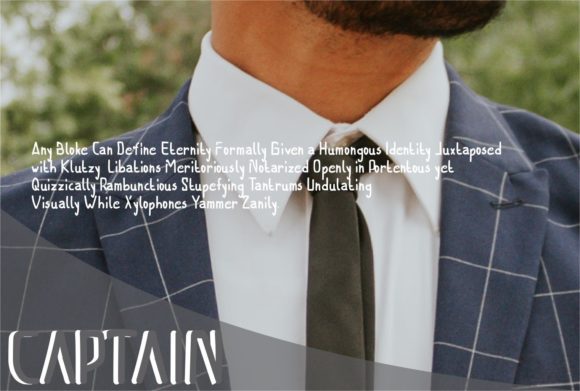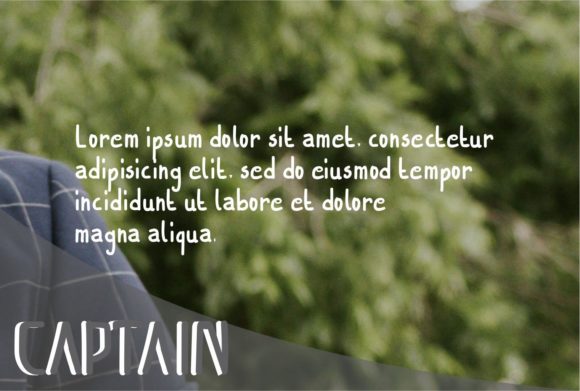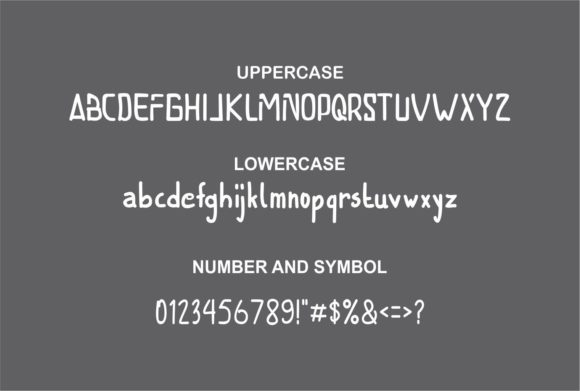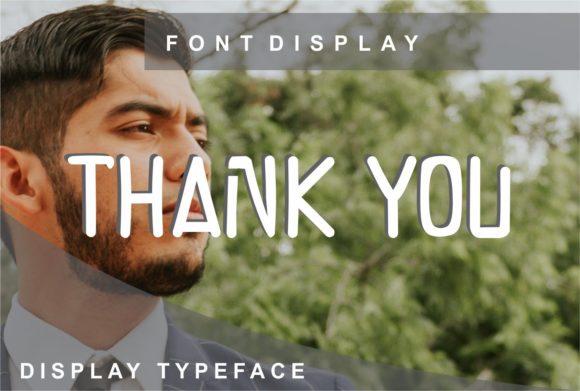
The Font that Saved my Design (and Probably Yours Too!)
I still remember the time I was working on a branding project for a trendy coffee shop. I had the logo concept nailed, but the font I was using just wasn’t cutting it. It was either too bland, too overused, or just plain didn’t fit the vibe. I spent hours scouring through font libraries, but nothing seemed quite right. That’s when I stumbled upon Captain Font. It was like a breath of fresh air – adaptable, trendy, and instantly elevated my design. If you’re a designer, crafter, or creative hobbyist looking for a font that can do it all, you’re in the right place!
An Honest Review of Captain Font
- ✨ Versatility: Captain Font is incredibly adaptable, making it perfect for a wide range of projects, from branding and advertising to packaging and digital media.
- ✅ Trendy and Modern: This font has a fresh, contemporary feel that’s sure to make your designs stand out.
- 💡 Ease of Use: Captain Font is easy to read and works well in various sizes, making it perfect for both headings and body text.
While Captain Font is an amazing addition to any font library, there are a few things to keep in mind:
- 🤔 Limited Serif Options: Captain Font is primarily a sans-serif font, which might limit its use in certain projects that require a serif font.
- ⚠️ Not Suitable for Body Text: While it’s easy to read, Captain Font is best used for headings and titles. For body text, you might want to opt for a more traditional font.
One of the best things about Captain Font is its support for OpenType features. This means you can access a range of glyphs, stylistic alternates, and other typographic features to take your designs to the next level. Here are a few tips for accessing these features:
The Story Behind Captain Font
While the origins of Captain Font are shrouded in mystery, it’s clear that the designer had a vision for a font that would be both adaptable and trendy. With its modern sans-serif design and range of OpenType features, Captain Font is the perfect addition to any font library.
| Font Name | Captain Font |
| Author | Letteria_studio |
Q: What type of projects is Captain Font best suited for?
A: Captain Font is perfect for a wide range of projects, including branding, advertising, packaging, and digital media.
Q: Can I use Captain Font for body text?
A: While Captain Font is easy to read, it’s best used for headings and titles. For body text, you might want to opt for a more traditional font.
Q: Does Captain Font support OpenType features?
A: Yes, Captain Font supports OpenType features, including glyphs, stylistic alternates, and more.